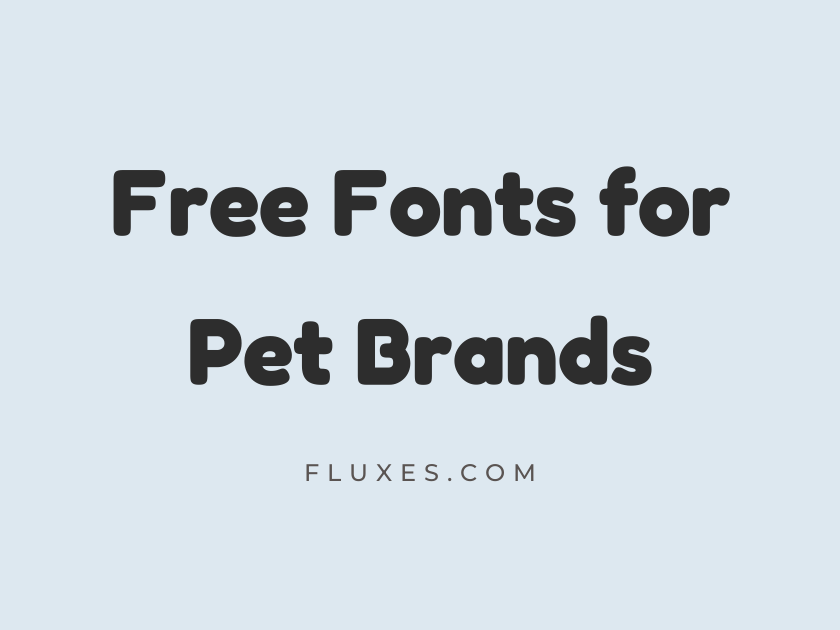
69 Best Free Fonts for Pet Brands
Pet brands live and die by warmth. Whether you are naming a boutique dog bakery, a veterinary clinic, a grooming studio, a pet sitting service, or a bag of organic kibble, the typeface on your logo and packaging has to say “friendly” before a single word is read. That is why so many of the best free fonts for pet brands lean rounded, bouncy, hand-drawn, or gently retro, the same qualities that make a puppy or a kitten instantly likeable.
Fredoka is the reigning favorite for pet logos, and for good reason. Its fully rounded terminals and soft geometric shapes read as instantly friendly without tipping into childish, which is why it shows up on everything from dog walking apps to premium pet food packaging.
It comes in a wide weight range, so a light cut can carry body copy on a website while the bold sits proudly in a wordmark. If your brand needs one dependable, do-everything typeface, start here.
Chunkier and more playful than Fredoka, Baloo 2 has a bubbly, hand-molded quality that suits treat bakeries and toy brands especially well. It gets heavy fast, so reserve the bolder weights for short headlines rather than paragraphs.
Balsamiq Sans
Originally designed for wireframes, Balsamiq Sans has an informal, slightly wobbly charm that feels hand-lettered without the fuss of an actual script. It works nicely for scrappy, DIY-feeling pet brands like a home-based dog daycare or a rescue’s fundraising materials.
Chewy earns its name honestly: thick, cartoonish strokes with a slight bounce make it look like something drawn for a kids’ cereal box, which translates surprisingly well to pet food and treat packaging. Keep it for short bursts of text; it turns muddy in long sentences.
Bubblegum Sans
Rounded, candy-colored, and a little goofy, Bubblegum Sans suits pet toy shops and kids’ pet-themed merchandise. It has an unmistakably youthful energy that skews more novelty than neutral, so use it sparingly against a calmer supporting font.
Sniglet’s puffy, marshmallow-like letterforms feel almost tactile, as if you could squeeze them like a plush toy. It is a natural fit for anything cuddly: pet bedding, plush toy lines, or a grooming brand built around gentleness.
Gentle care for every furry patient
Varela Round softens a standard sans just enough to feel welcoming while still reading as professional, which makes it a smart choice for veterinary clinics or pet insurance brands that need warmth without losing credibility.
Calm grooming for anxious pets
Geometric and evenly weighted, Comfortaa has a modern, minimalist calm to it. It suits pet wellness brands, calming supplements, or a spa-style grooming studio that wants to feel current rather than cutesy.
Light, airy, and rounded, Quicksand brings a soft-touch elegance to boutique pet brands. Its thinner weights can lose contrast at very small sizes, so pair a heavier cut for labels and packaging text.
M PLUS Rounded 1c
This rounded sans originated in Japan and carries that region’s gift for soft, huggable letterforms. Broad language support makes it a practical pick for pet brands selling internationally, and its friendliness never feels forced.
Grandstander
Grandstander is deliberately imperfect, with letters that lean and bounce like they are mid-wiggle. That controlled chaos gives it real personality for a brand built around fun and mischief, though its irregularity means it is not built for dense text.
Mali
Mali carries a handwriting-inspired warmth with rounded, informal strokes. It reads as homemade and personal, a good match for small-batch pet food brands or a neighborhood pet sitting service.
Trusted pet care since day one
Nunito is one of the most reliable rounded sans fonts on Google Fonts, friendly enough for a pet brand’s headlines yet clean enough to carry paragraphs of website or packaging copy. Its rounded terminals soften even a bold weight, so it never feels aggressive.
If your brand serves a more clinical audience, such as a veterinary practice, lean toward calmer choices like Karla, Work Sans, or Poppins, and use a script only as a small accent rather than the main voice.